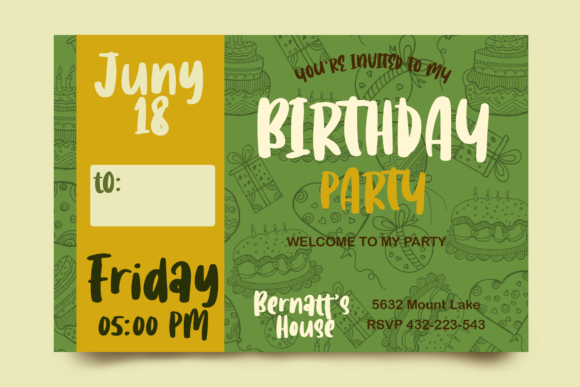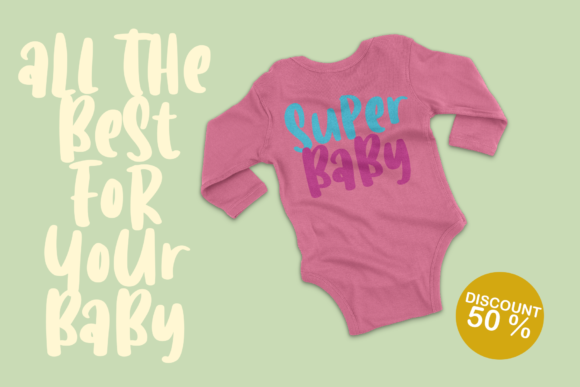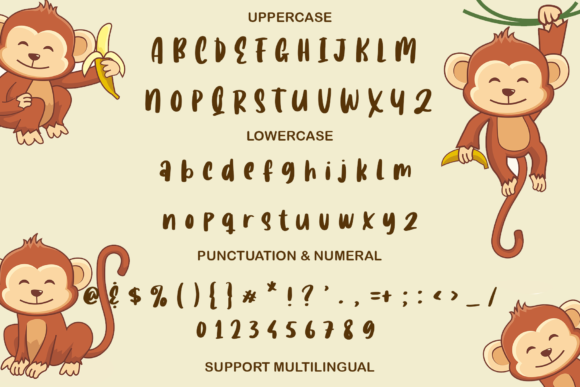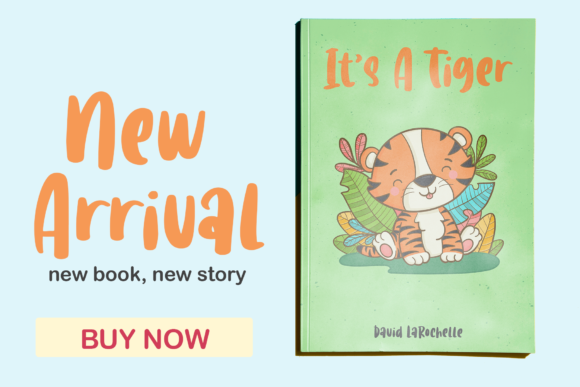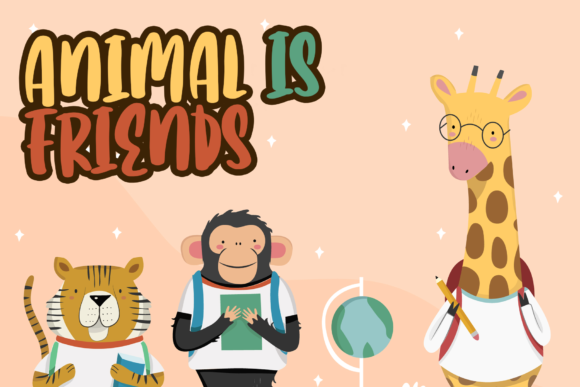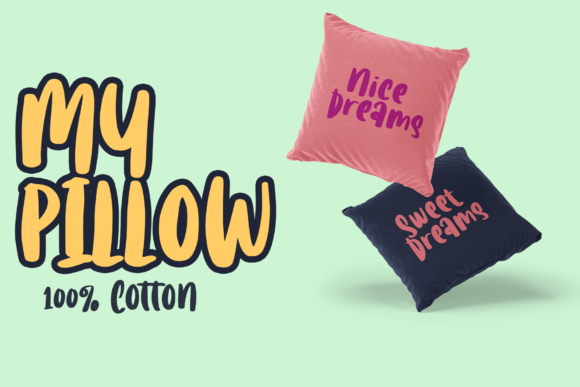
Baby Tarzant Font: Unleashing Fun and Playfulness in Typography
In the vast universe of typography, few fonts manage to capture the essence of fun, playfulness, and authenticity as perfectly as the Baby Tarzant Font. This enchanting display font has been making waves among designers and crafters, and for good reason. With its unique charm and character, Baby Tarzant embodies the spirit of adventure and creativity, turning any project into a true standout.
The Birth of a Classic: What is Baby Tarzant Font?
Baby Tarzant Font is a display typeface that exudes a sense of playfulness and spontaneity. Its design is inspired by the wild and free-spirited nature of the jungle, bringing to mind images of Tarzan swinging through the trees. The font’s irregularities and quirks add to its charm, making it an instant favorite among designers looking for something fresh and exciting.
Key Features of Baby Tarzant Font
- Unique Character: Baby Tarzant Font boasts a one-of-a-kind design that sets it apart from more traditional typefaces. Its distinctive look is perfect for projects that require a touch of whimsy and adventure.
- Playful and Fun: The font’s playful nature makes it ideal for designs aimed at children or for creating eye-catching headlines that demand attention.
- Authentic and Raw: Baby Tarzant Font has an authentic, raw feel that lends itself well to craft and DIY projects, adding a personal touch to any design.
- Versatility: While primarily used as a display font, Baby Tarzant can be adapted for various creative projects, from branding and advertising to packaging and digital media.
Who is Baby Tarzant Font for?
Baby Tarzant Font is a treasure trove for a wide range of designers and crafters, including:
- Graphic Designers: Looking for a unique font to make their projects stand out, whether it’s for a client’s branding, an advertisement, or a website.
- Crafters and DIY Enthusiasts: Seeking that perfect font to add a personal touch to their handmade goods, such as customized t-shirts, mugs, and home decor.
- Digital Artists and Illustrators: Needing a font that complements their artwork and adds an extra layer of storytelling or emotion.
How to Use Baby Tarzant Font Effectively
To truly harness the power of Baby Tarzant Font, consider the following tips:
- Pair with Simpler Fonts: For optimal readability, pair Baby Tarzant with simpler, more straightforward fonts for body text or secondary information.
- Experiment with Sizes and Colors: Play around with different sizes and colors to maximize the font’s impact, especially in display settings.
- Emphasize Creativity: Don’t be afraid to get creative with your designs. Baby Tarzant Font is all about fun and experimentation.
Baby Tarzant Font is more than just a typeface; it’s a statement of creativity, fun, and individuality. Its unique blend of playfulness and authenticity makes it a valuable tool for designers and crafters looking to infuse their projects with a bit of wild adventure. Whether you’re working on a branding campaign, crafting handmade goods, or creating digital art, Baby Tarzant Font is sure to turn your creative ideas into standout masterpieces.